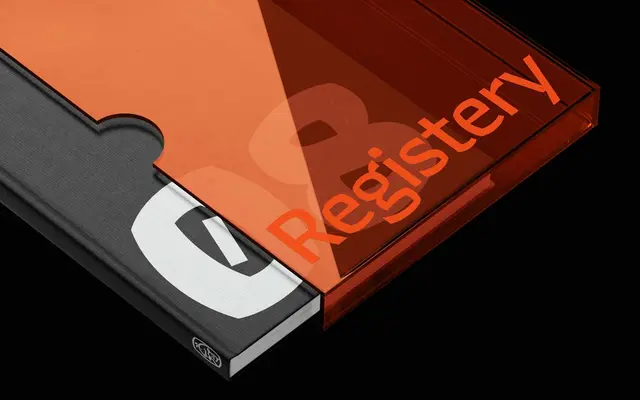
Plebeian
Order · Benjamin Tuttle
An experimental text sans by Benjamin Tuttle that reconstructs Latin letterforms as discrete marker strokes, producing squared bowls and visible thick/thin contrast.
Drawing on Frank E Blokland's lettermodel theory, Tuttle breaks curves into individual strokes as if drawn with a fat-nibbed marker. The squared bowls read chunky at display sizes but settle into a legible rhythm at small text sizes where the thick/thin contrast aids differentiation. Ten styles cover five weights from Regular to Black, each with a matching italic.
Described as an experimental sans serif, Plebeian applies Frank E Blokland's lettermodel concept to break curves into discrete strokes drawn with a fat-nibbed marker, producing visible thick/thin contrast and squared bowls rather than smooth geometric or humanist curves.